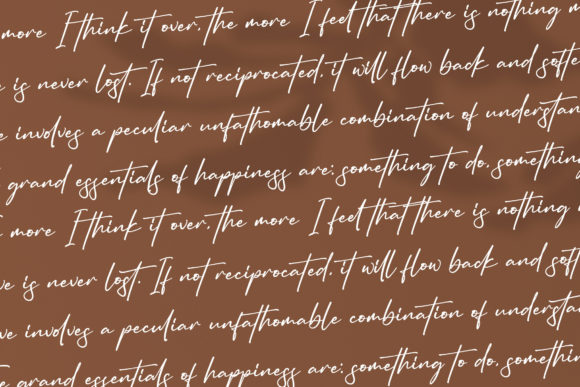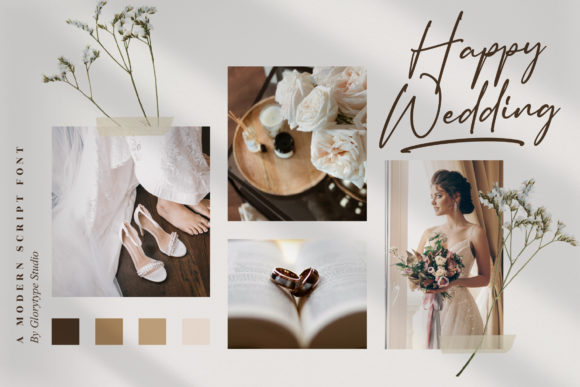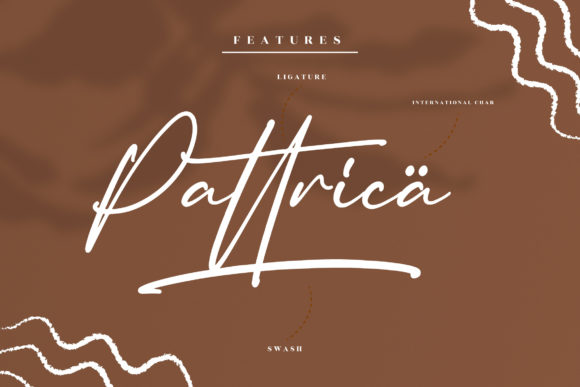
About Carpethen Font
Carpethen is a modern and relaxed script font. It is PUA encoded which means you can access all of the glyphs and swashes with ease! Add it confidently to your projects, and you will love the results.